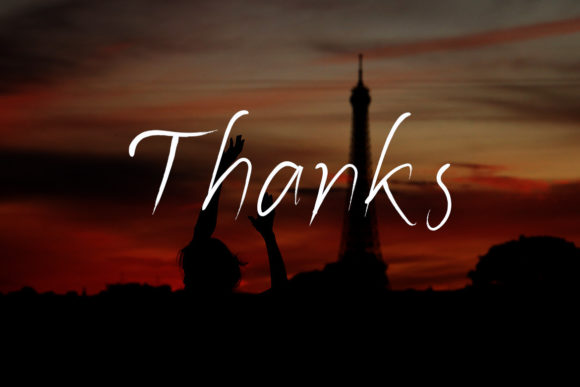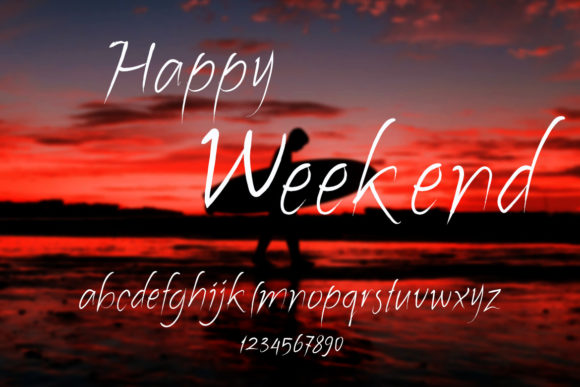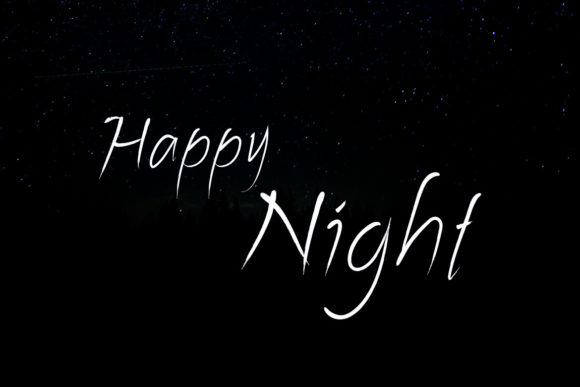
Introduction to Modena Brush Font
Do you ever get that rush of creative excitement when you stumble upon the perfect design resource? For many designers, it’s the moment when a new font can elevate an entire project. That’s exactly what happened when I discovered the Modena Brush Font – a high-quality, handwritten rough brush font that’s been a game-changer for my creative projects.
With its unique, organic feel, the Modena Brush Font is perfect for designers looking to add a personal touch to their work. Whether you’re designing a logo, crafting social media graphics, or creating movie titles, this font is sure to make your project stand out. And the best part? It’s available for free download, making it an accessible design resource for creatives of all levels.
Key Features of Modena Brush Font
- High-quality design resource ideal for creative projects requiring a unique, artistic touch.
- Features a transparent background, making it easy to layer over other design elements without visual clutter.
- Includes a range of brush-style characters, from elegant cursive to bold, expressive lines, perfect for adding personality to any design.
- Supports resolutions up to 300 DPI, ensuring crisp, clear text at various scales and sizes.
- Designed with a focus on creative expression, making it an excellent choice for designers seeking a high-quality, unique design resource.
- Perfect for designers working on personal or commercial projects, including branding, typography, and editorial design.
Honest Review: Modena Brush Font
I recently had the chance to work with the Modena Brush Font, and I must say it’s been a game-changer for my creative projects. This high-quality design resource is perfect for anyone looking to add a touch of elegance and sophistication to their work.
The font’s transparent background makes it incredibly versatile, allowing me to use it on a variety of backgrounds without any issues. I love how easily it integrates into my design workflow.
Here are some of the things that really stand out about the Modena Brush Font:
- ✨ Beautiful, hand-drawn style that adds a personal touch to any project
- ✨ Wide range of font weights and styles to choose from
- ✨ High-quality design that looks great at any size
Of course, no font is perfect, and I did encounter a few limitations:
- ⚠️ Limited support for certain operating systems
- ⚠️ Can be difficult to read at very small font sizes
Overall, I’m really impressed with the Modena Brush Font. It’s a great addition to any designer’s toolkit, and I would highly recommend it to anyone looking for a high-quality, versatile font.
Modena Brush Font is a high-quality design resource ideal for creative projects. This beautiful brush font offers a transparent background, making it perfect for various applications.
For optimal results, use Modena Brush Font with a bold or italic style to add emphasis to your text. Experiment with different font sizes and colors to create a unique look.
Modena Brush Font is perfect for creative projects, such as social media graphics, presentations, and documents. It’s also great for branding and marketing materials, like business cards and brochures.